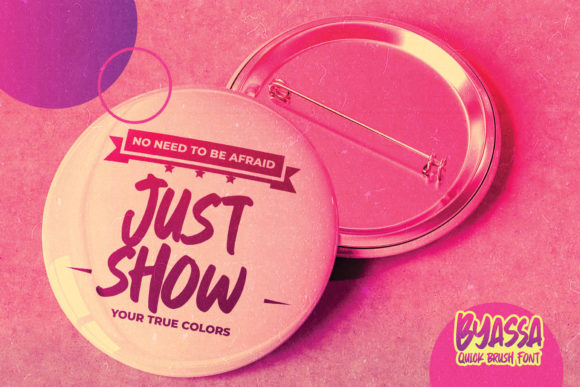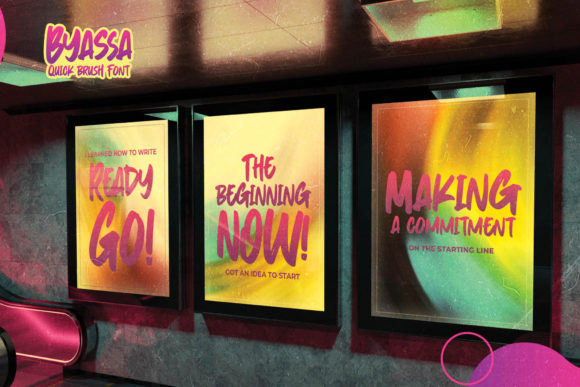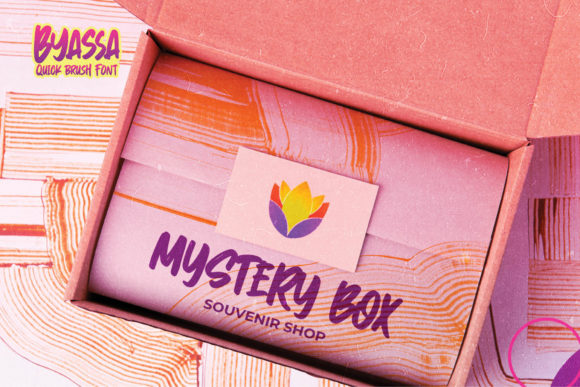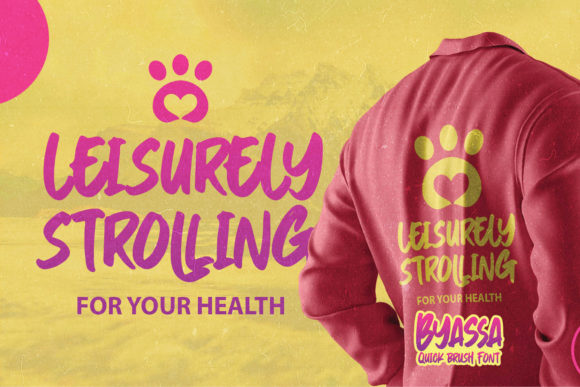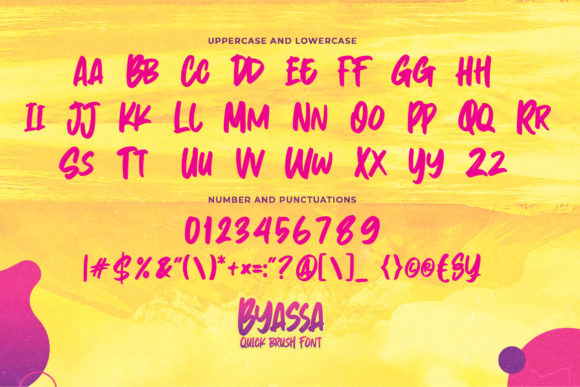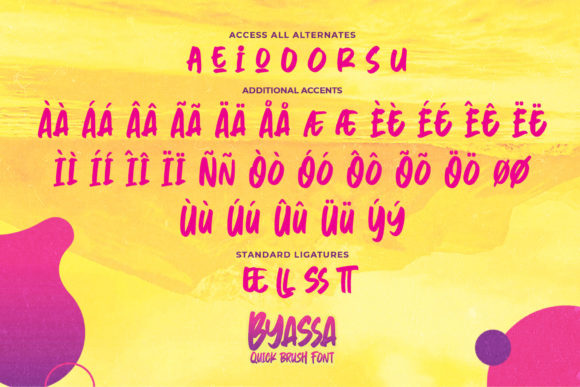
Introduction to Byassa Font
As designers, we’ve all been there – staring at a blank canvas, struggling to bring our creative vision to life. The perfect font can be the difference between a mediocre design and a masterpiece. That’s where the Byassa Font comes in – a quick brush font that’s as elegant as it is expressive.
With its textured, natural style and dramatic movement, Byassa Font is the perfect addition to any creative project. Whether you’re working on a logo, printed quote, invitation, or product packaging, this font is sure to add a charming, authentic, and relaxed look to your text. And the best part? It’s fully accessible without additional design software, thanks to its PUA Encoded Characters.
Key Features of Byassa Font
- High-quality, unique font design ideal for creative projects
- Supports a wide range of languages, making it a versatile font for international creative projects
Honest Review: Byassa Font
I recently came across the Byassa Font, a free design resource that caught my attention. At first glance, I was drawn to its elegant and modern design. As a designer, I appreciate high quality fonts that can elevate a creative project.
- ✨ Sleek and modern design that’s perfect for contemporary projects
- ✨ High quality, clear typography that’s easy to read
- ⚠️ Limited character set, which may not be suitable for projects requiring extensive text
Overall, the Byassa Font is a solid addition to any designer’s toolkit. While it may have some limitations, its high quality and modern design make it a great choice for creative projects. With a little creativity, designers can work around its limitations and produce stunning results.
Byassa Font
The Byassa Font is perfect for a variety of design projects, including logos, business cards, and social media graphics. Its transparent background makes it ideal for adding text overlays to images, and its high quality ensures that it will look great in any design.
To get the most out of the Byassa Font, be sure to use it in conjunction with other design elements that complement its clean and modern style. You can also experiment with different font sizes and colors to add visual interest to your design.